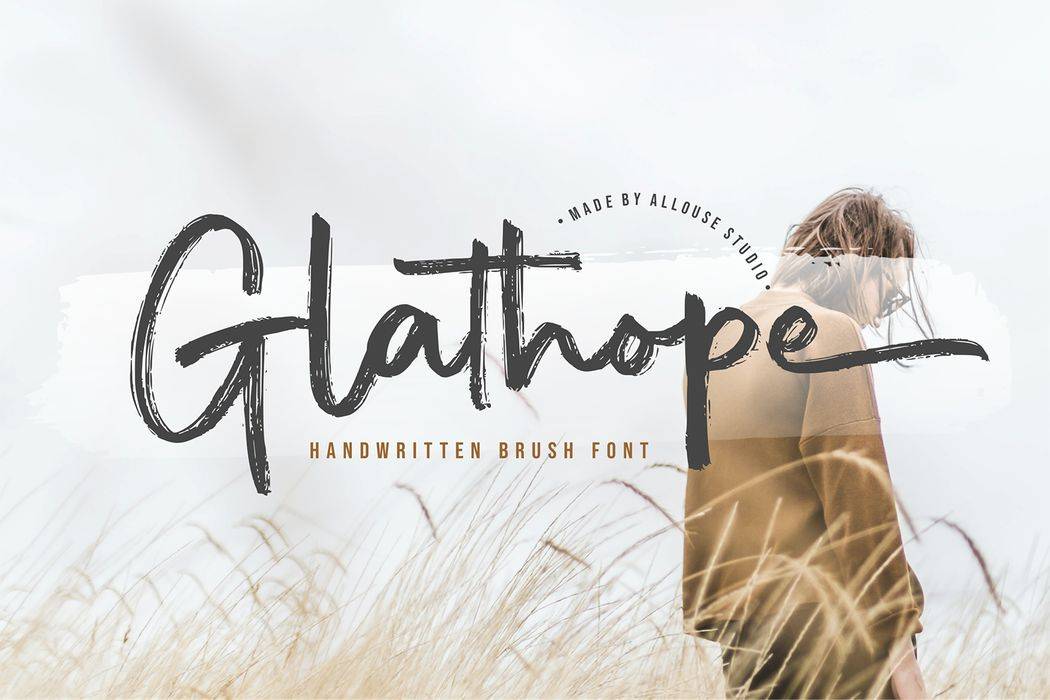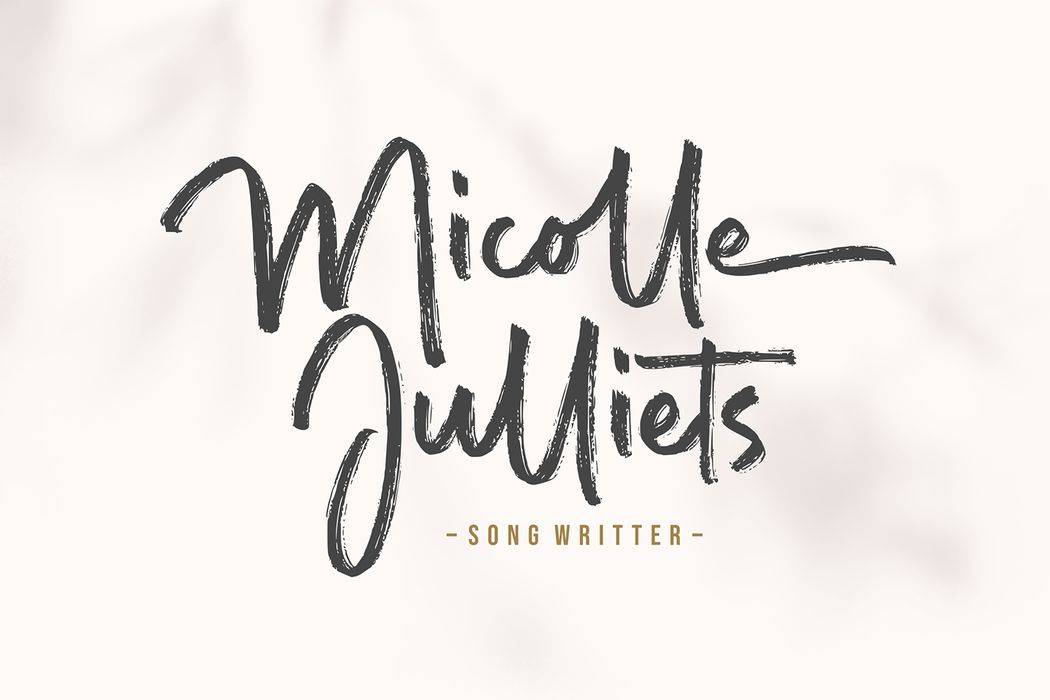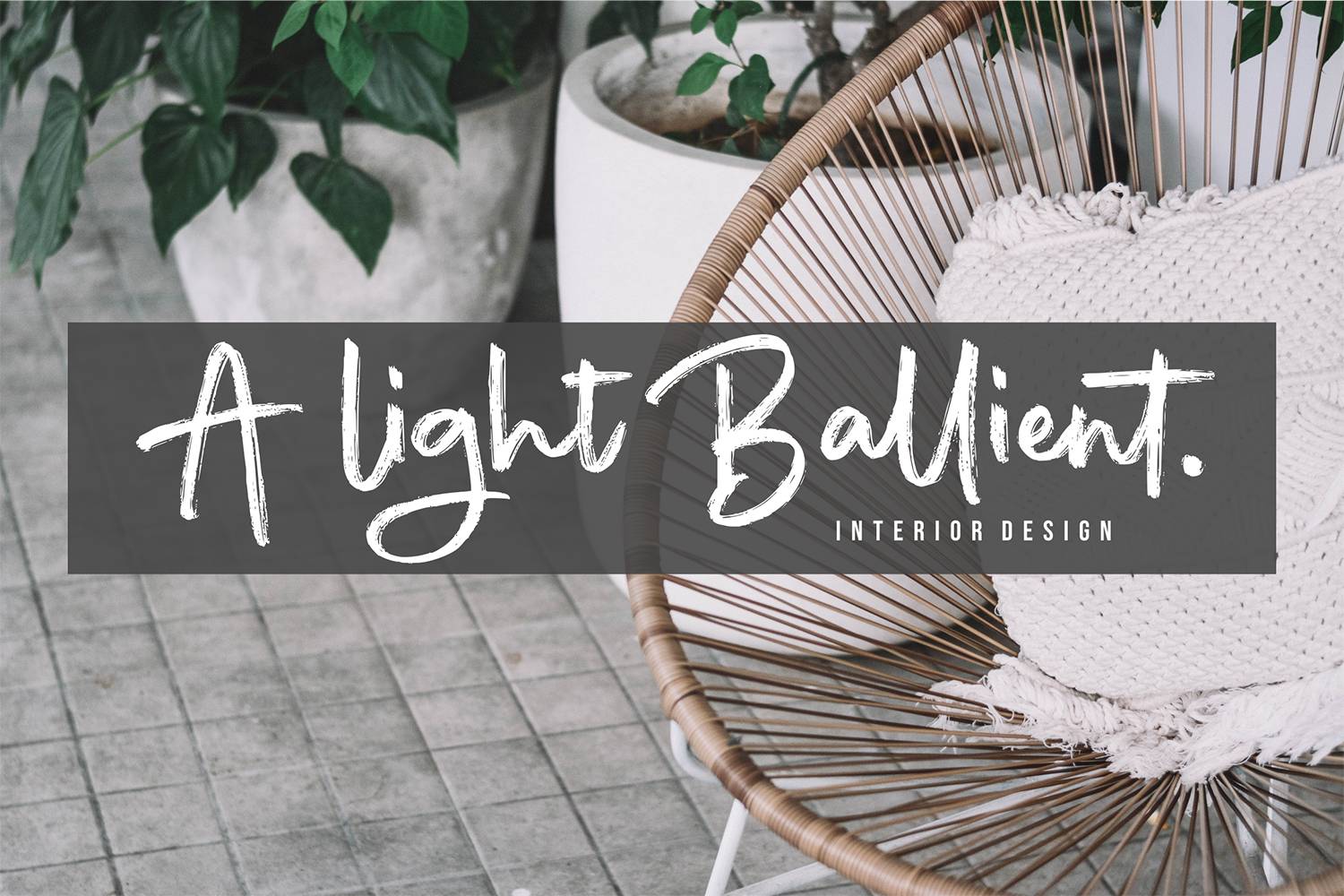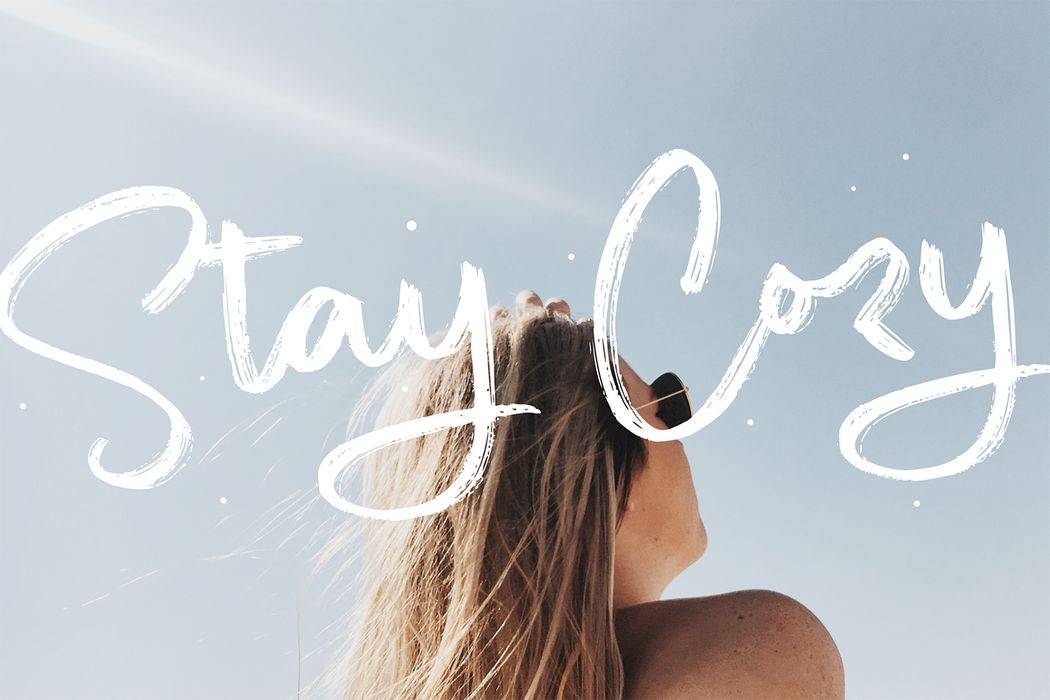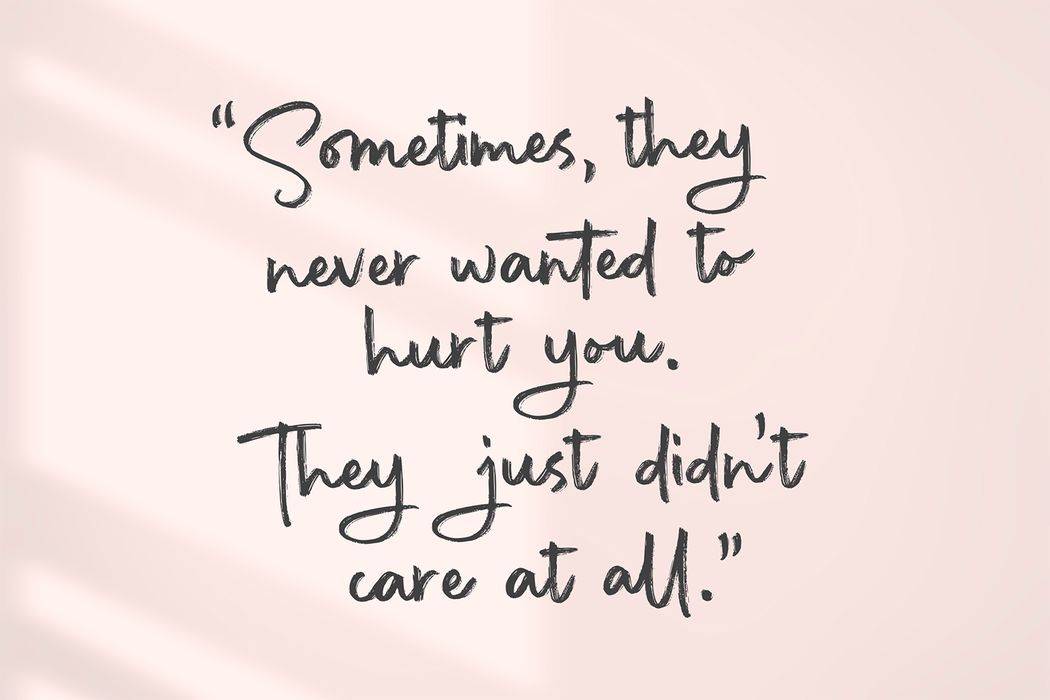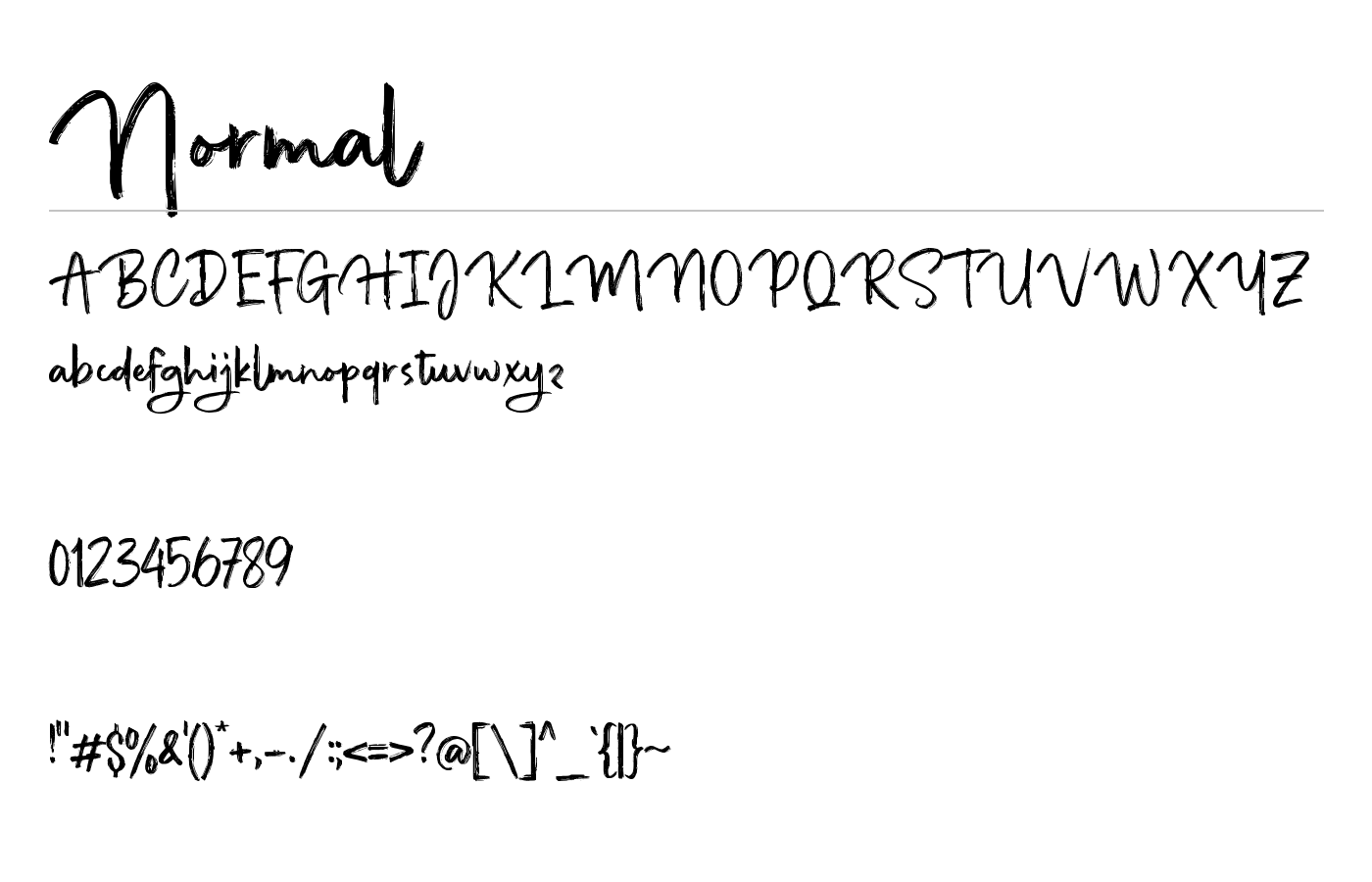
Glathope is a casual, handwritten script font with a lively, textured brushstroke style that gives it an approachable and artistic feel. Its mix of playful uppercase and flowing lowercase letters makes it ideal for creative branding, invitations, and informal headlines where personality and warmth are key. This font works well in designs seeking a friendly and expressive touch without losing legibility.
Glathope Font
About Glathope Font